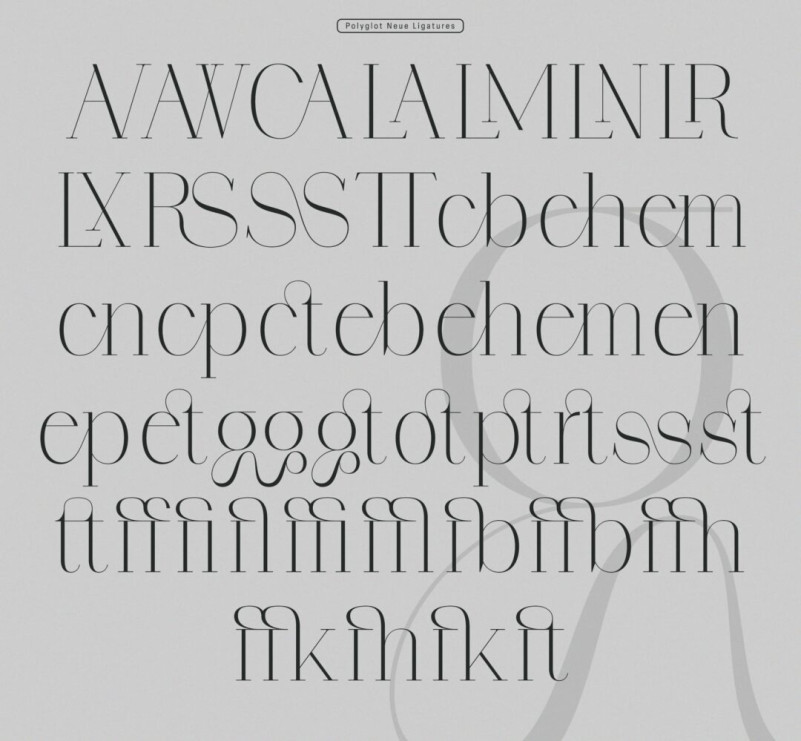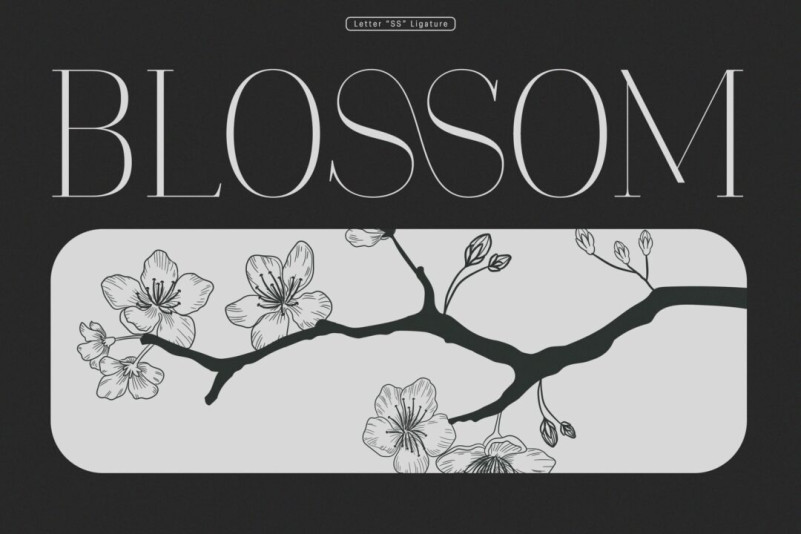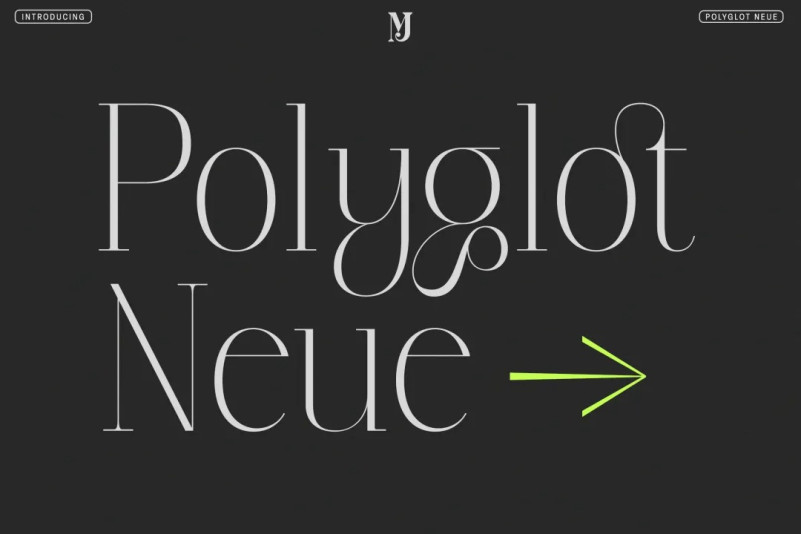
Polyglot Neue Font
Polyglot Neue Serif Font, Redesign previous typeface, It’s Polyglot and “Neue” it’s means New. The unique and fashionable font with tons of ligatures uppercase and lowercase. and supports multilingual languages. the straight lines combined with a slight curve make polyglot look minimalist and elegant.